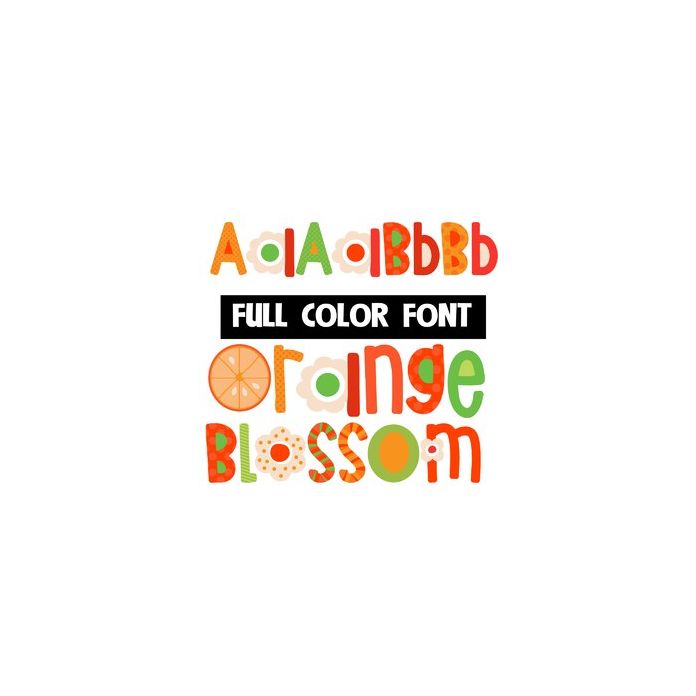
This full-color font features oranges, greens, a few orange blossoms and an orange slice for the capital O. There is a secondary color of each letter that you can access through Silhouette's glyph map. This font works best for titles, displays, posters and more. Please note color fonts will show as black in non compatible programs. This font type is compatible with Silhouette Studio.